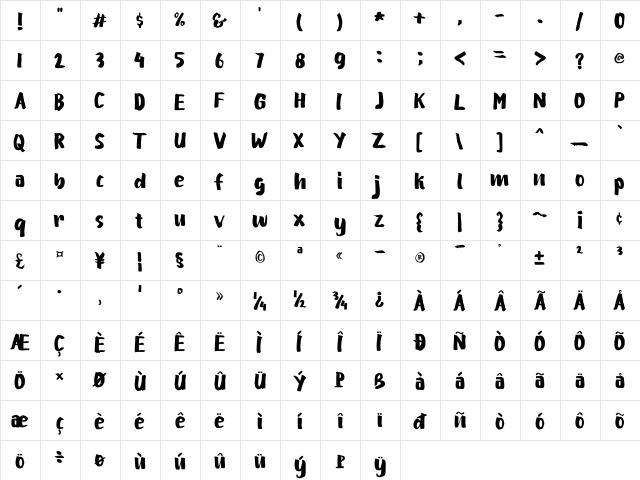
Yakow BRUSH Regular
| Foundry | Nur Solikh / Flamde Studio |
| Designer | Nur Solikh |
Design Context for Yakow BRUSH Typeface
Yakow BRUSH brings a calligraphic fluidity to the page — its connecting strokes and expressive curves give it an unmistakably human quality.